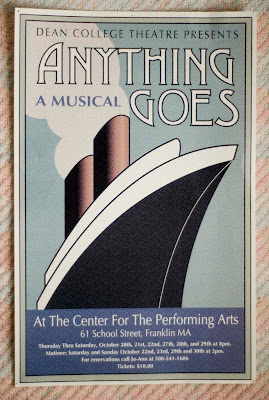
My son majored in Musical Theater at a little college in Franklin, MA, near Boston. Somehow, a company named Red Dog Designs created the posters for the College's theater productions. Here are two examples:The poster for A Midsummer Night's Dream requires a little explanation. Cleverly, the motif for the production was a 1970's disco club with Oberon--King of the Fairies--patterned after David Bowie, and Titania--Queen of the Fairies-- modeled after Stevie Nicks. I think that the poster does a better job creating interest in attendance than any verbal explanation could.
Anything Goes is a musical with music and lyrics by Cole Porter in 1934. The action takes place on an ocean liner bound to London from New York City.
I admire the way the designer captured the Art Deco style of the era with a shape so abstract that objectively it doesn't look anything like a ship, yet is unmistakable. I'm not sure if you can see the visual texture added to the image, but it's a little bit like stucco.